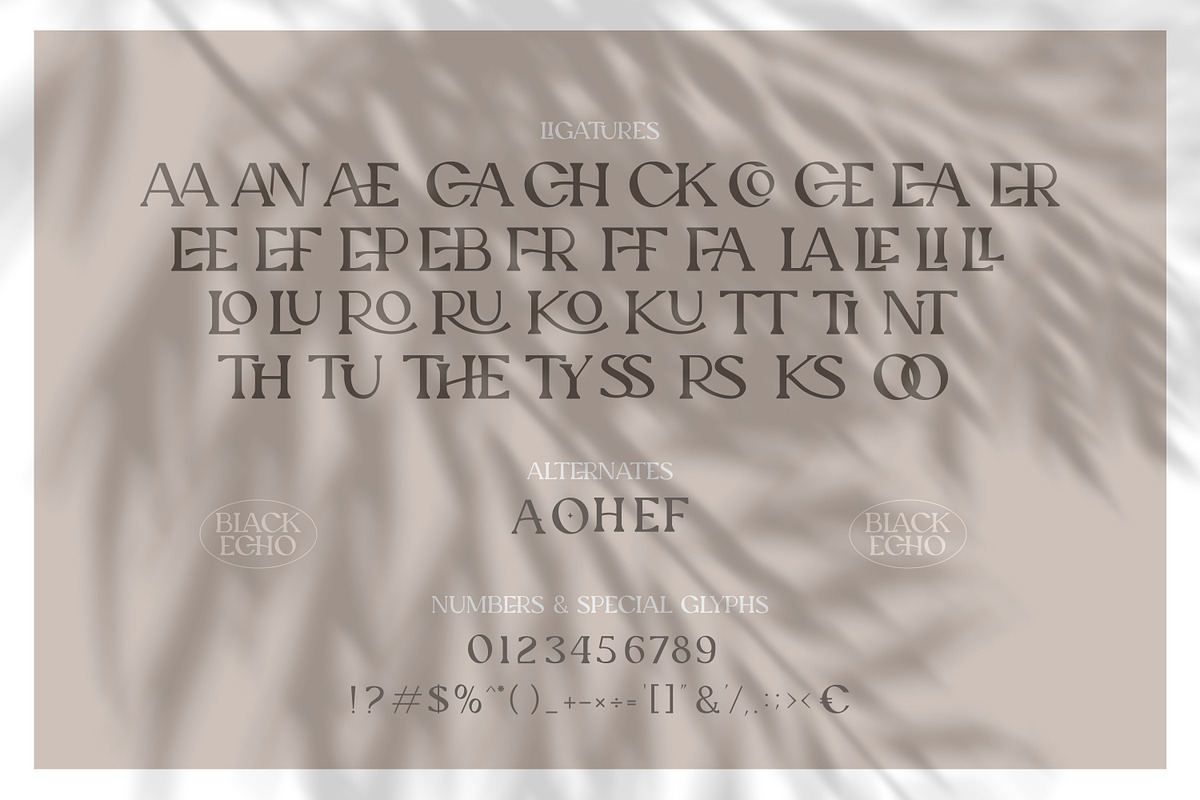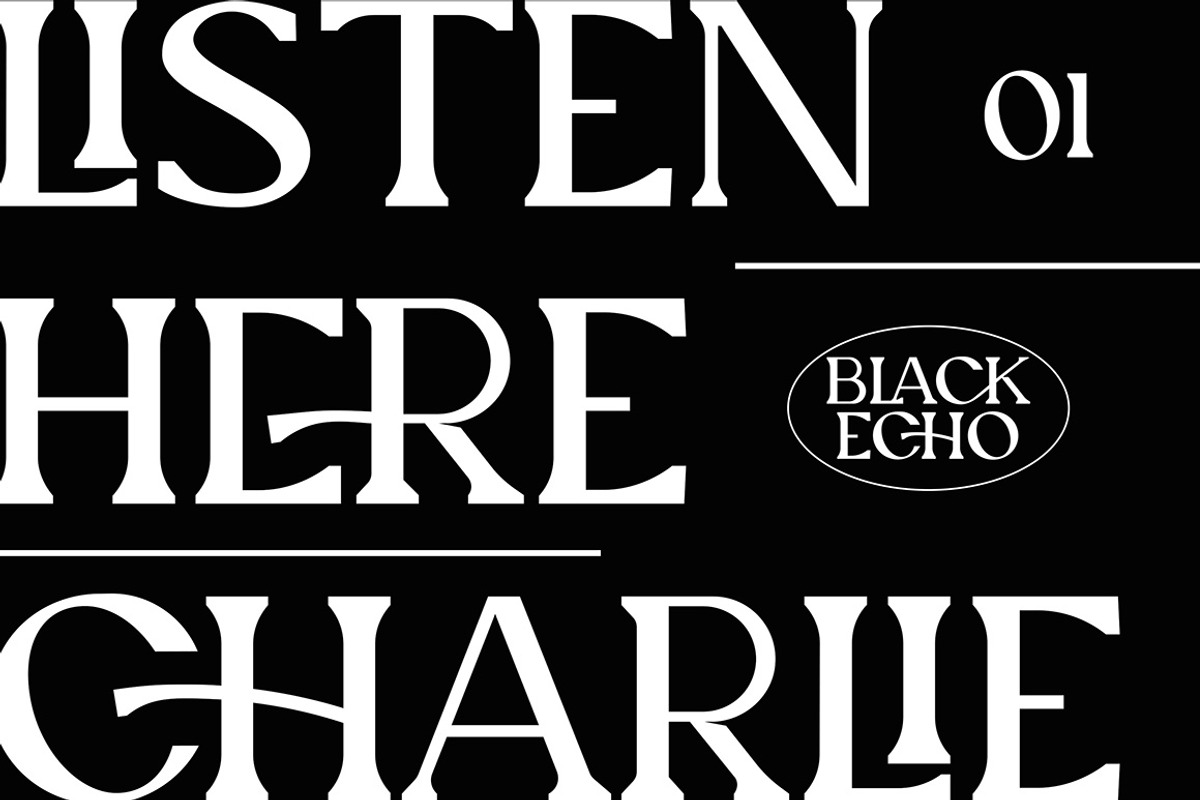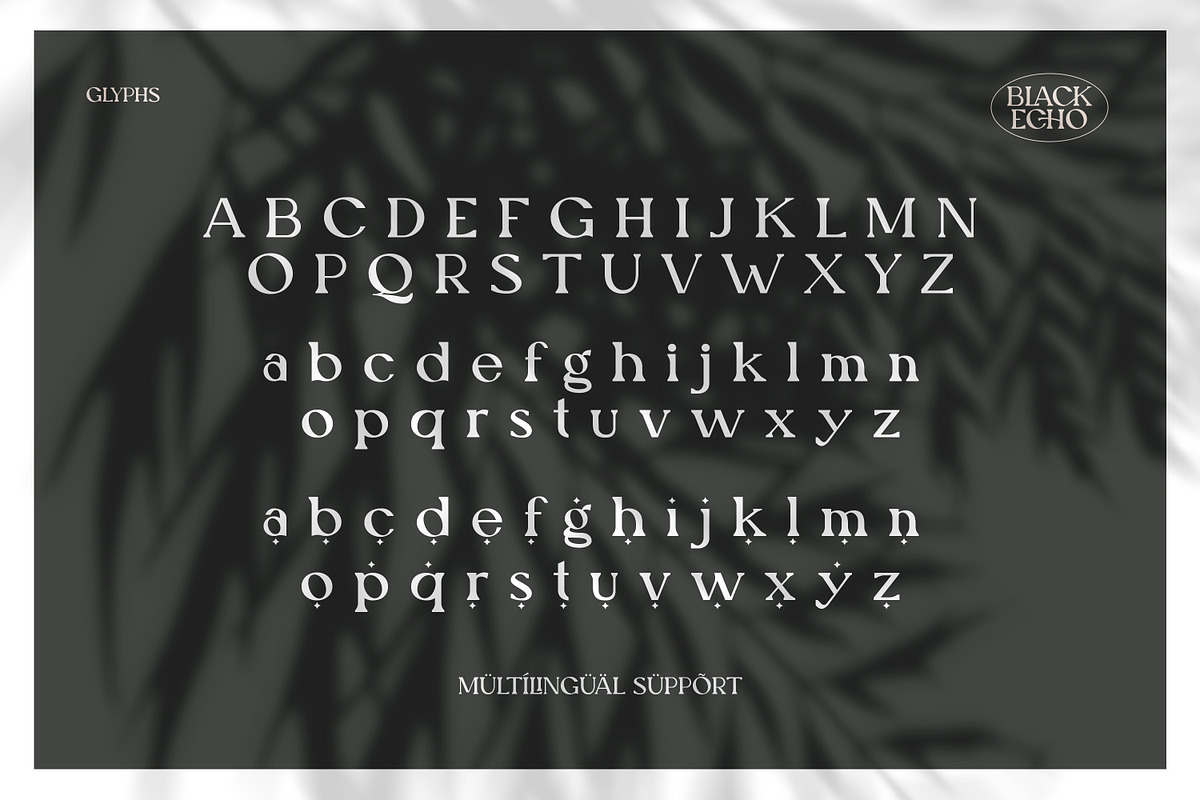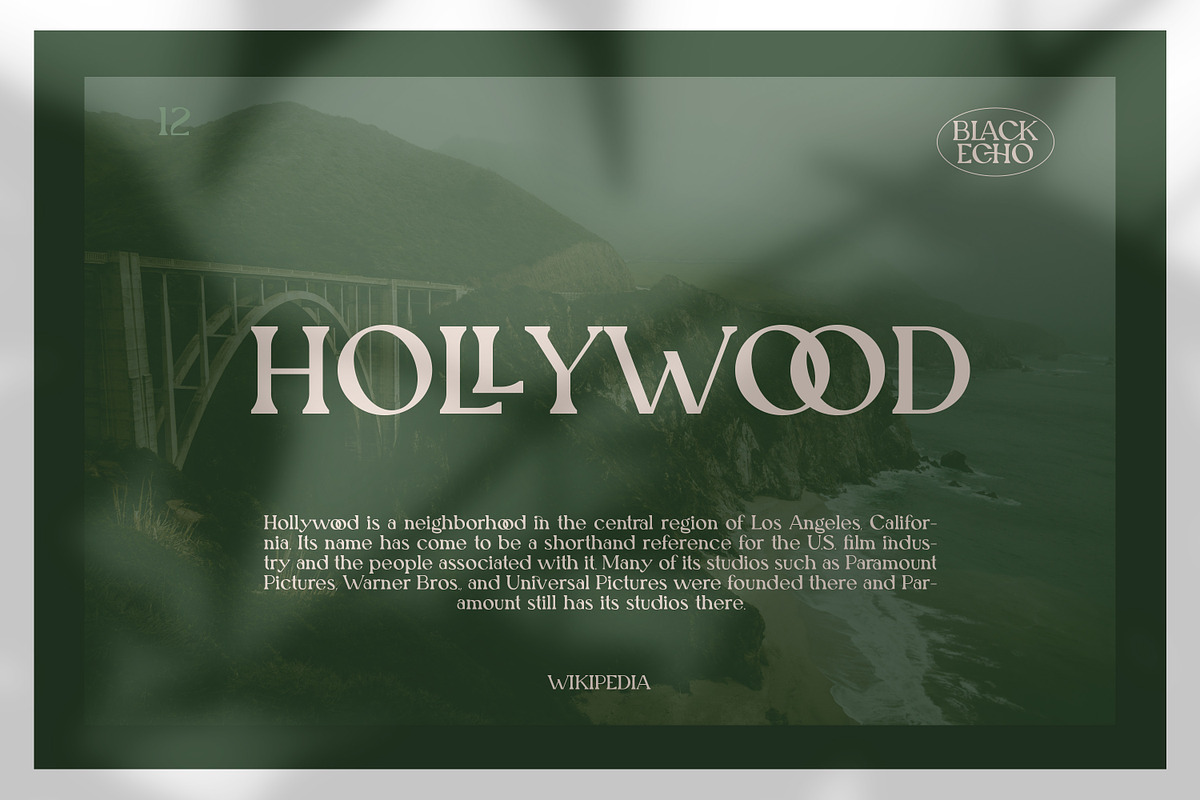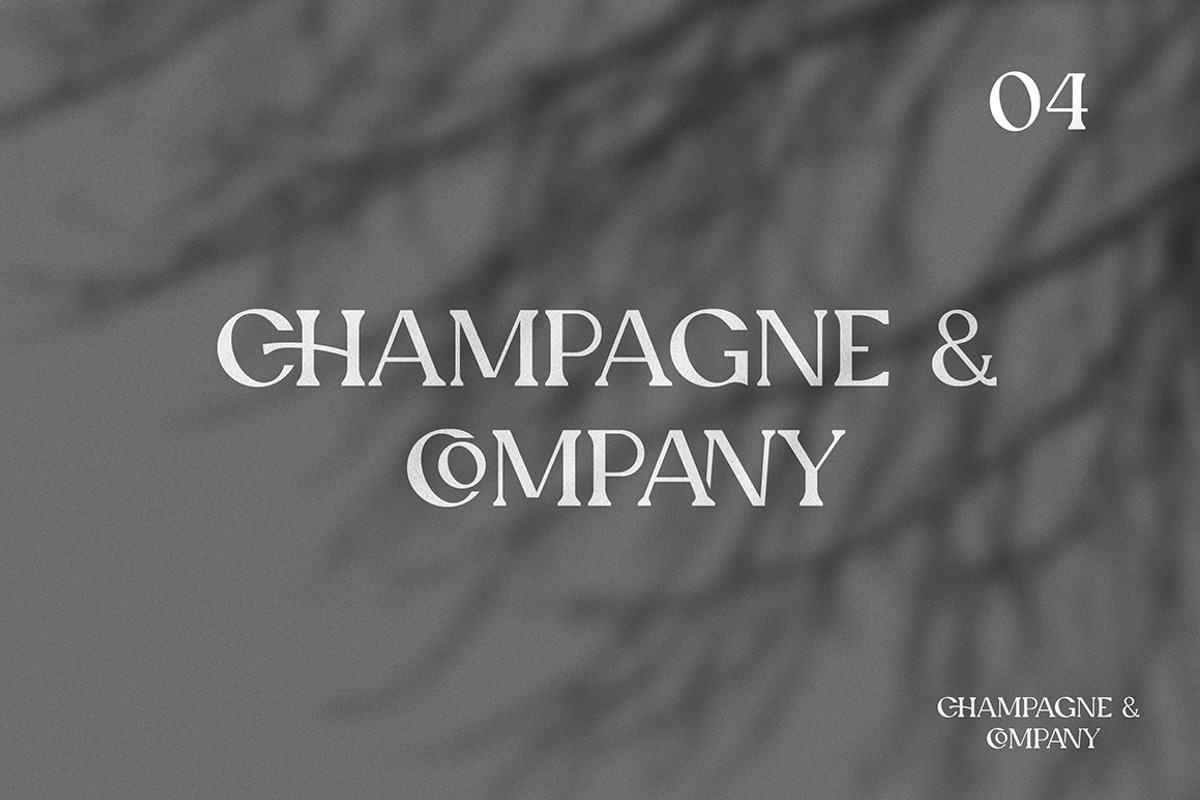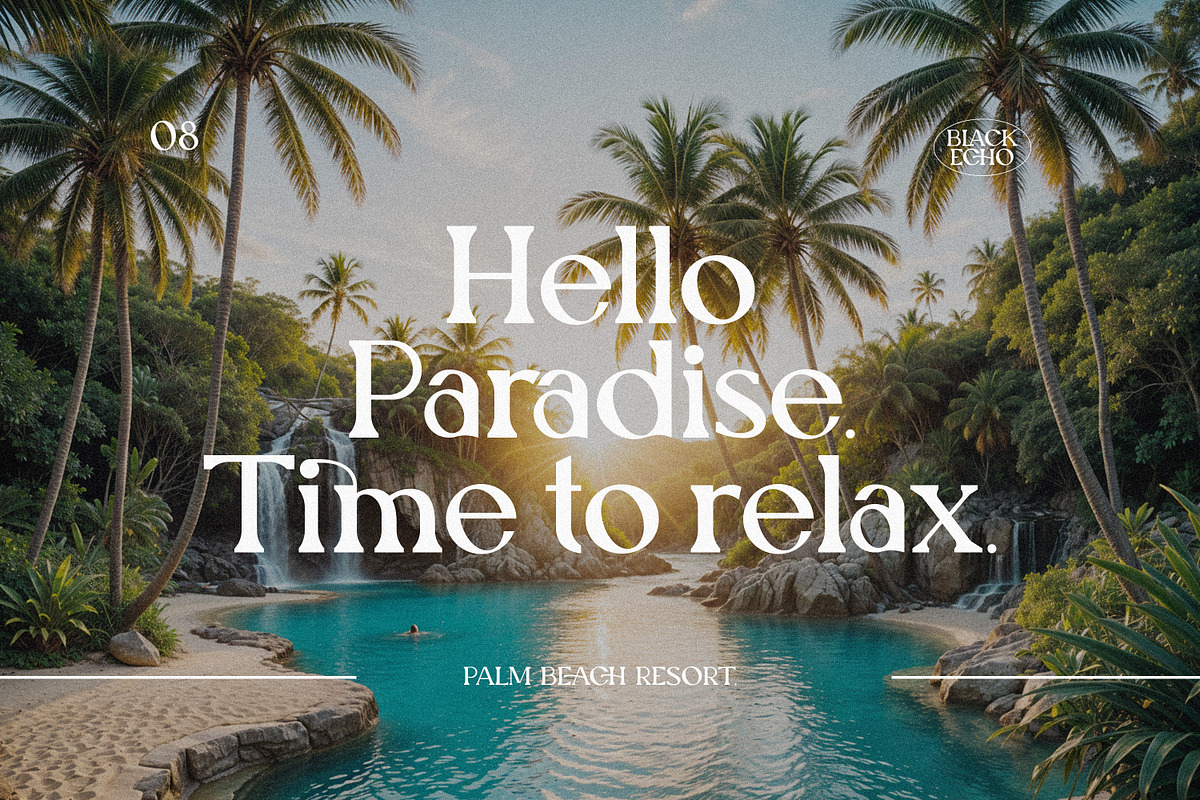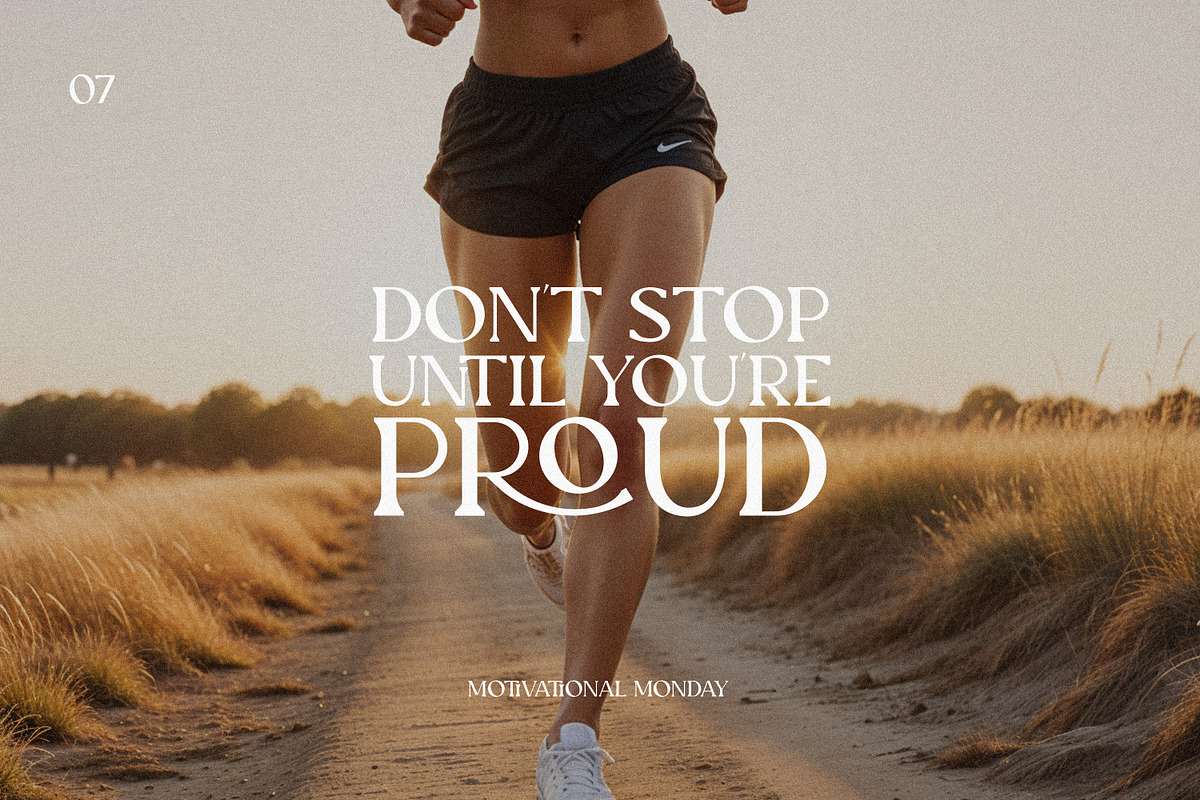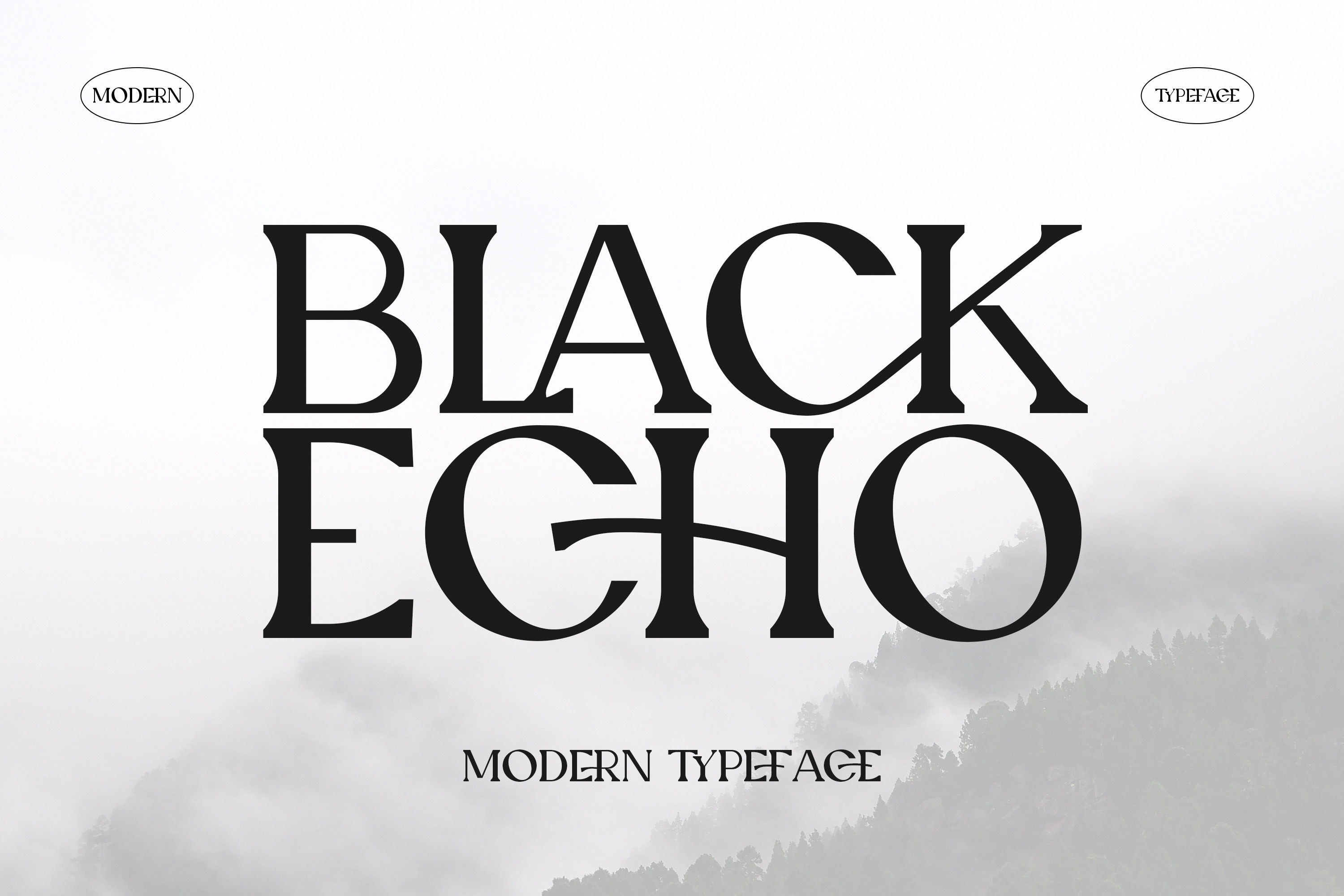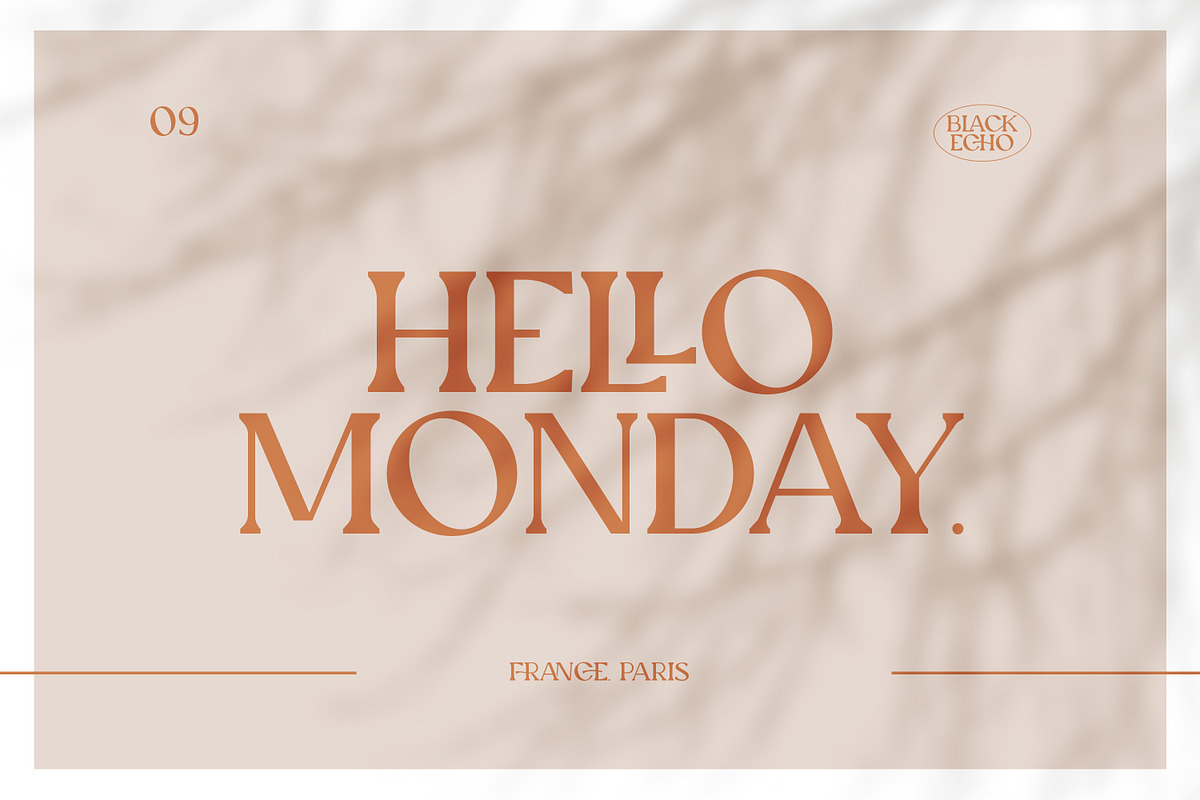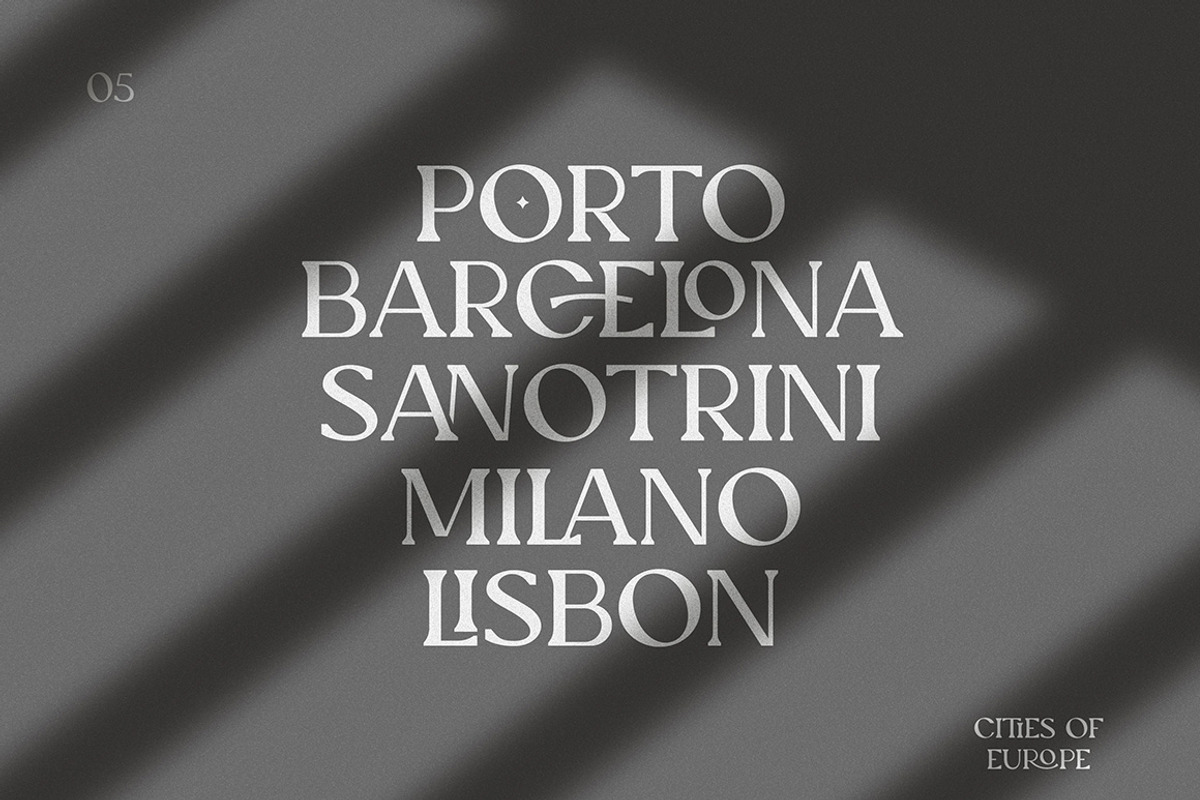
Black Echo Modern Ligature Font
Black Echo is a modern typeface with a slightly vintage vibe and lots of ligatures.
It's perfect for modern and retro designs. Although it's primarily meant to be used as a display font, it also has a set of lowercase characters with ligatures and alternates that make it look unique and super customizable - turn ligatures/on or off, use alternates, and play around with tracking for one of a kind look (super useful for branding a logo design).
Black Echo font includes:
- Uppercase Letters
- Lowercase Letters
- Alternate Letters
- Special Characters
- Multilingual Glyphs